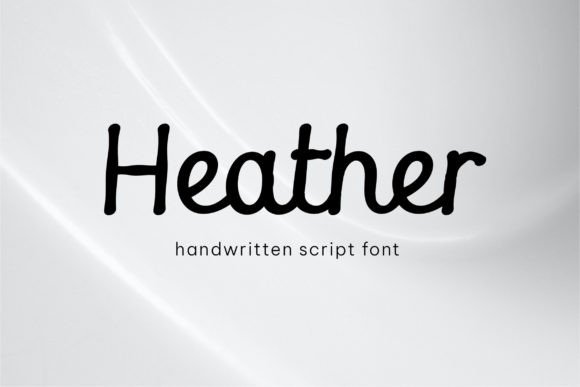
Prepare yourself to be captivated by Heather Font, the exquisite script font family designed by FontCastle, renowned for its elegance and charm. Experience the magic of handwritten artistry as Heather transforms your digital creations into masterpieces.
Heather is more than just a font; it's an expression of individuality. Its graceful curves and expressive strokes add a touch of sophistication to your projects, making them stand out from the ordinary. Whether you're crafting heartfelt letters, designing captivating invitations, or creating enchanting logos, Heather will effortlessly elevate your work to new heights.
Immerse yourself in the versatility of Heather. Its comprehensive character set, including a range of stylistic alternates and ligatures, empowers you to explore endless creative possibilities. From classic and timeless to whimsical and contemporary, Heather effortlessly adapts to any style, seamlessly complementing your unique vision.
Indulge in the beauty of Heather. Its meticulously crafted details and impeccable kerning ensure effortless readability, allowing your words to flow with grace and clarity. Whether you're creating digital content or printed materials, Heather guarantees a visually stunning experience that captivates and engages your audience.
Unlock the creative potential within you with Heather Font. Let its allure inspire you to craft designs that resonate with your authentic voice. Whether you're a seasoned designer or just starting, Heather will effortlessly elevate your work, transforming ordinary projects into extraordinary expressions of artistry.